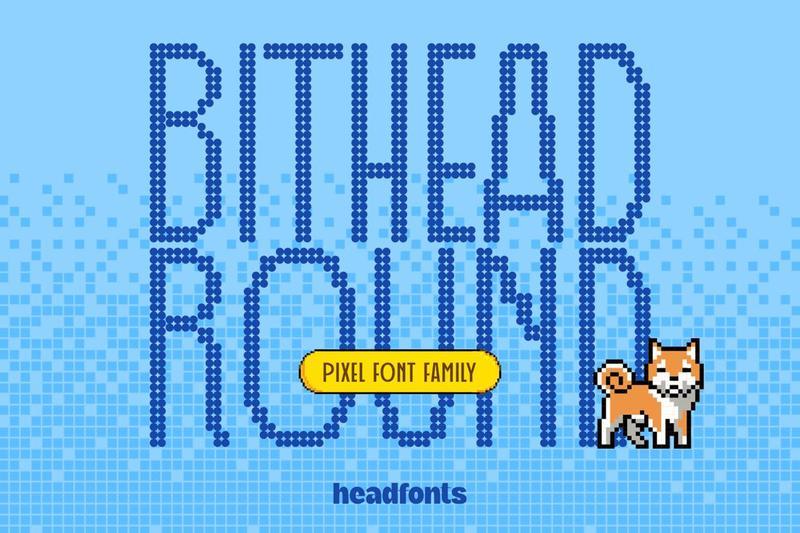
**Bithead Round** is the softer side of the Bithead family. Same pixel DNA, completely different feel. Where the original Bithead hits hard with sharp corners and angular weight, Round replaces every pixel square with a circle and that single change transforms the entire character of the font.
The result is a modern pixel display typeface that feels approachable without losing its digital edge. It still reads as retro, still carries that screen-built aesthetic, but it works in contexts where the original would feel too aggressive. Think mobile game UI, kids content, lifestyle branding, or any project that needs a fun, bold headline with a futuristic pixel twist.
Available in Light and Regular, Bithead Round covers the range from open and airy to solid and present. The Light is particularly strong at large display sizes the dot structure becomes part of the visual itself. The Regular fills in and delivers more weight while keeping that friendly roundness intact. Both weights work well as logo fonts, giving brands a distinctive, playful identity that stands out without going full grunge.
Like the rest of the Bithead family, all letters are uppercase. Lowercase input renders as small caps, keeping consistency across your layouts without breaking the grid logic behind the font.